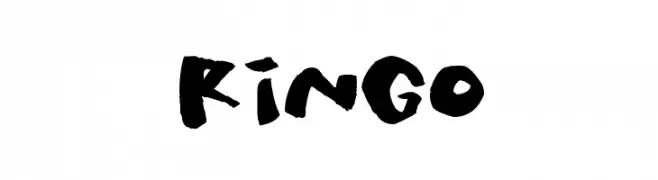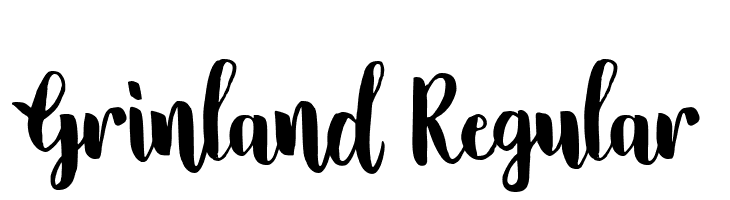
A playful, handwritten font with flowing, interconnected letters.
A jagged, thorn-like font with an aggressive and rebellious style.
A bold, geometric font with a modern, industrial style.
A bold, brush-style font with a raw, hand-painted look.
A bold, distressed font with a rugged, vintage appearance.
A bold, expressive handwritten font with flowing, connected letterforms.
A dynamic, cursive font with fluid, interconnected letters and a handwritten feel.